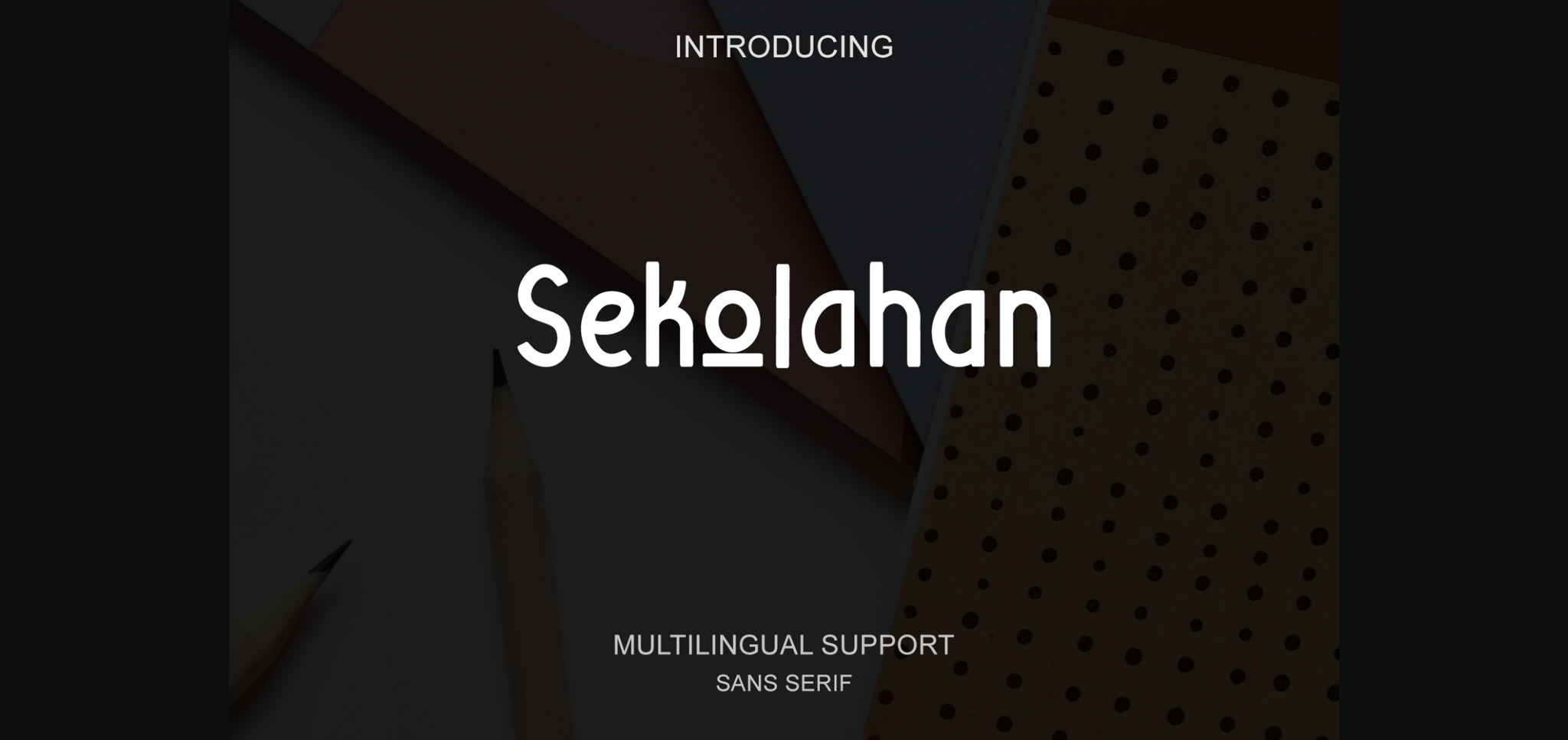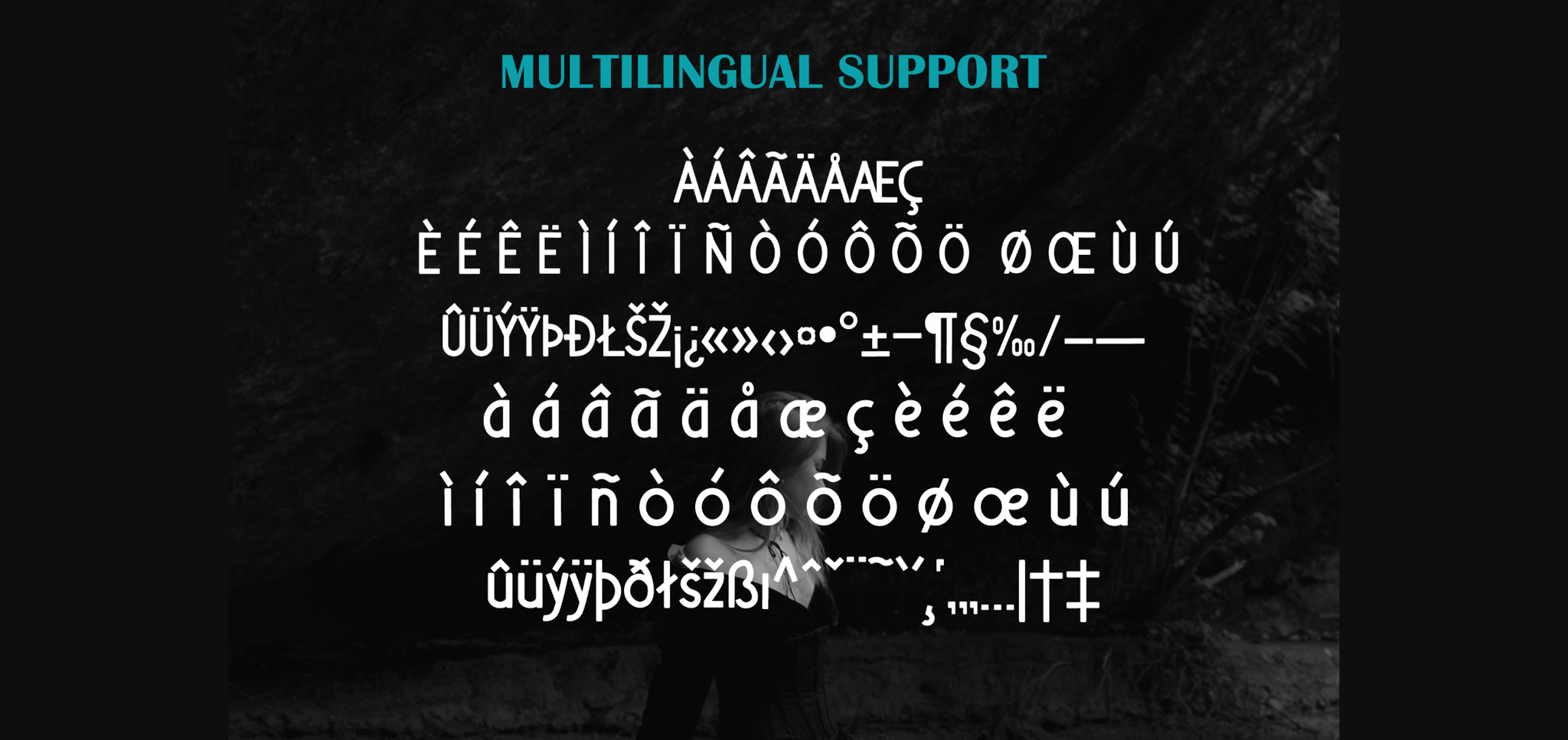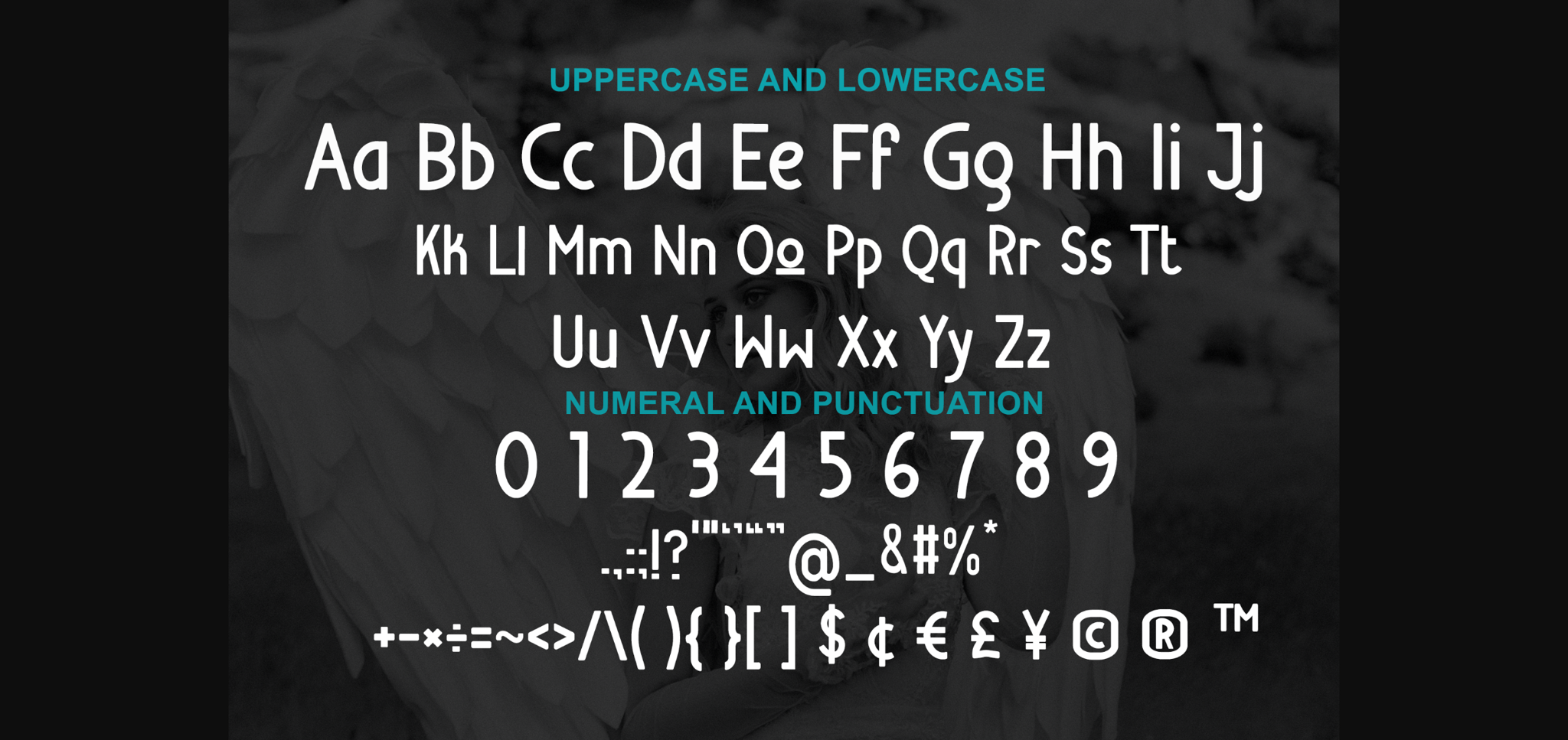
About Sekolahan Font
Sekolahan is a Sans Serif font. It was inspired by notes. The font looks casual and playful. It’s perfect for handwritten notes, sweet greeting cards, beautiful quotes, and stand-out branding as well. Suitable for any design needs, branding, urban design, modern advertising design, Book/Cover Title, special events, adventures, headlines, clothing and more.